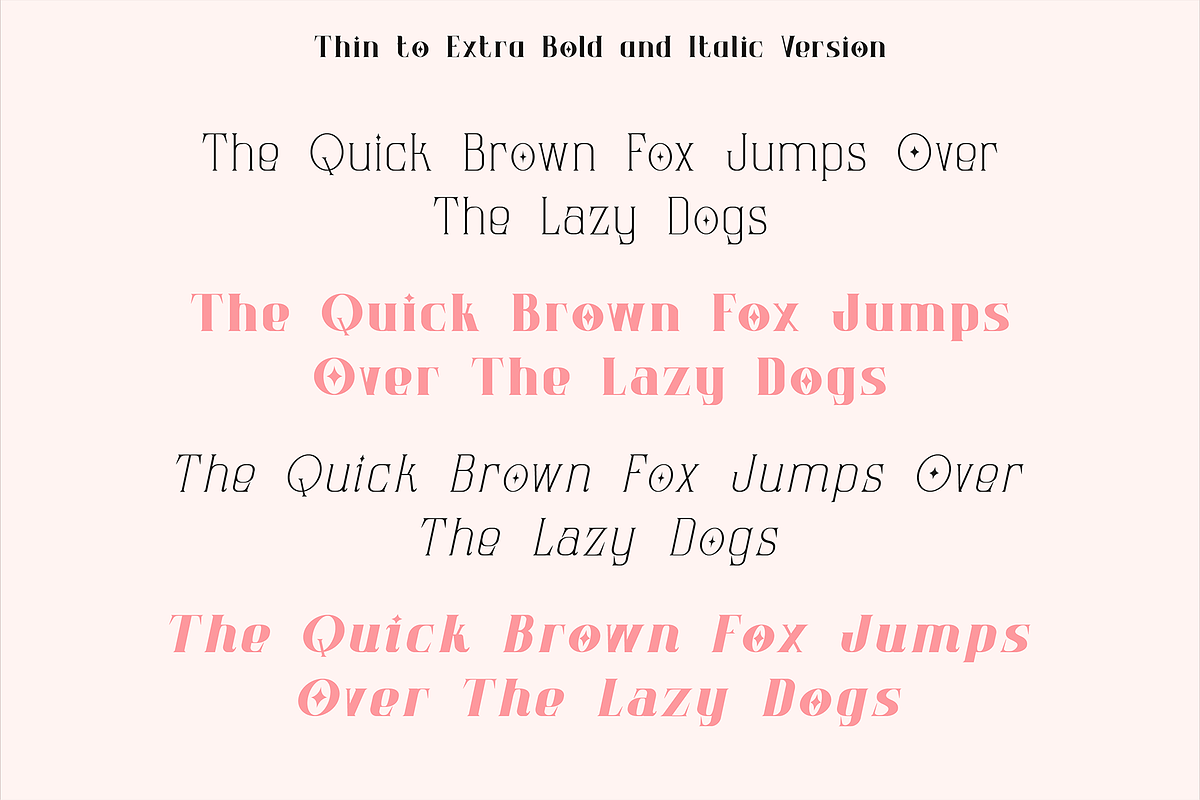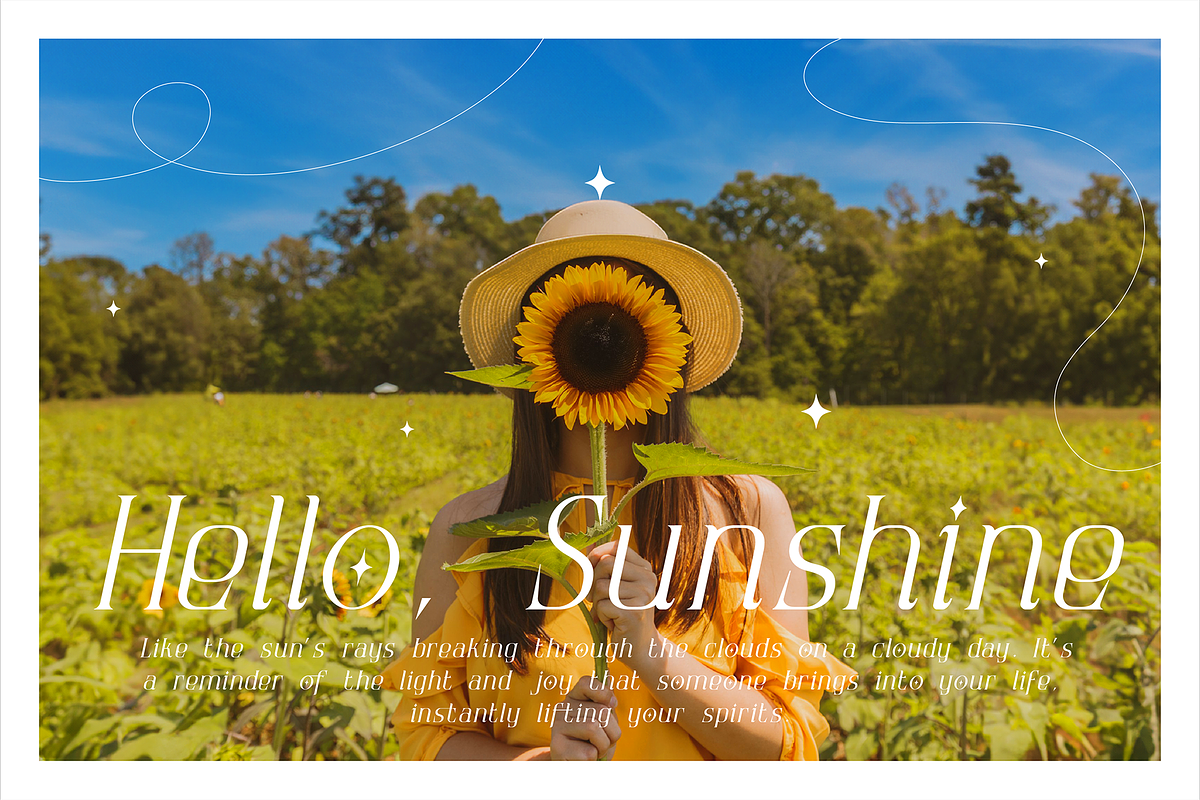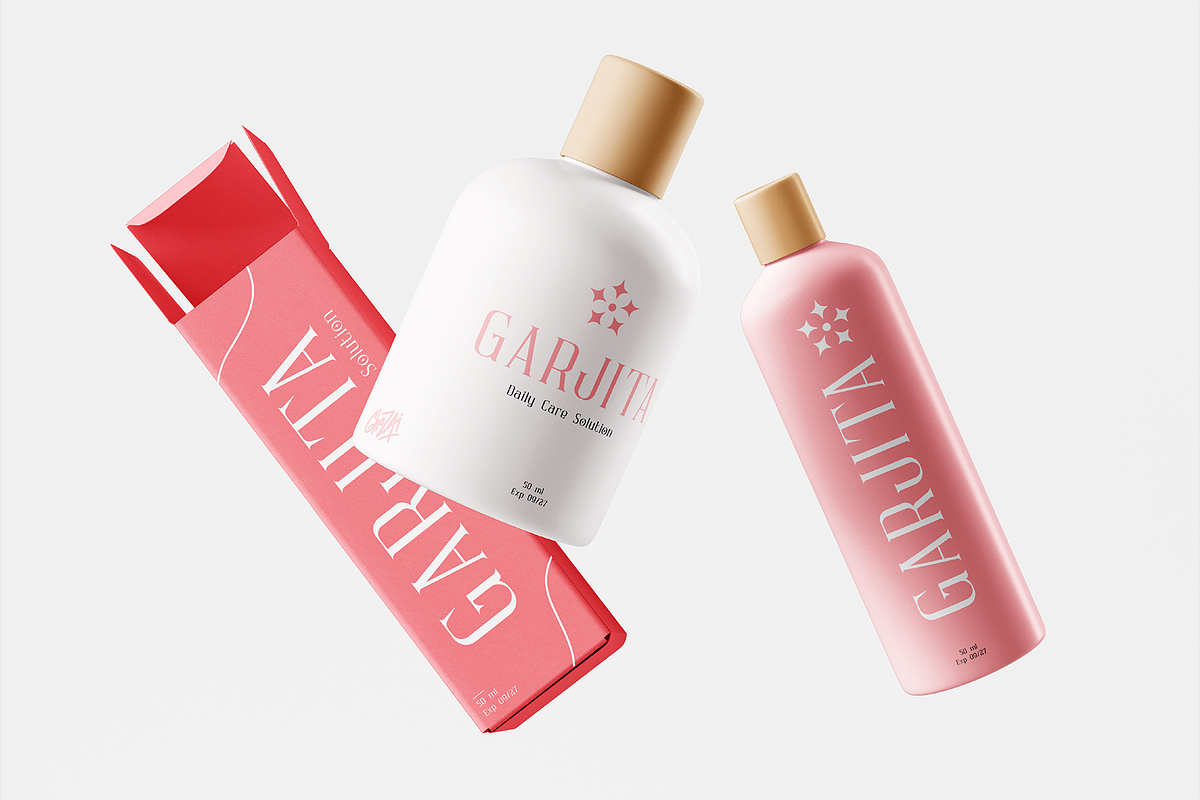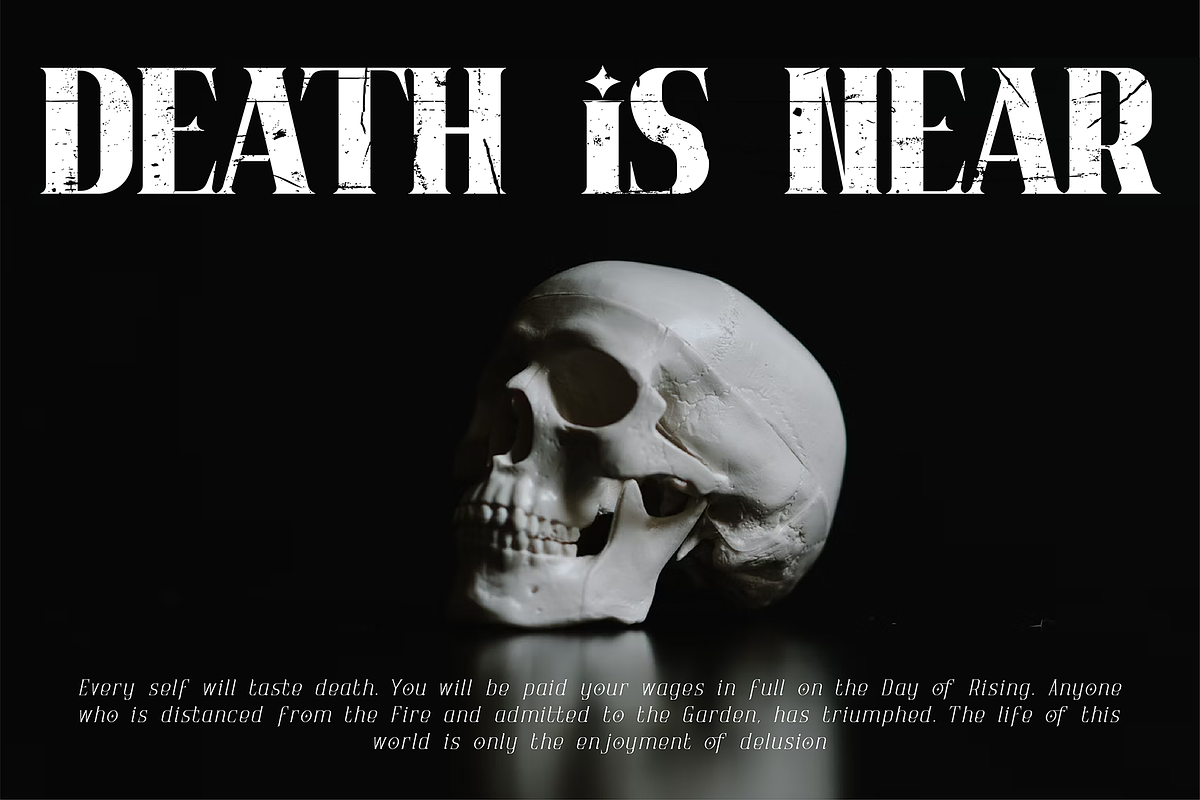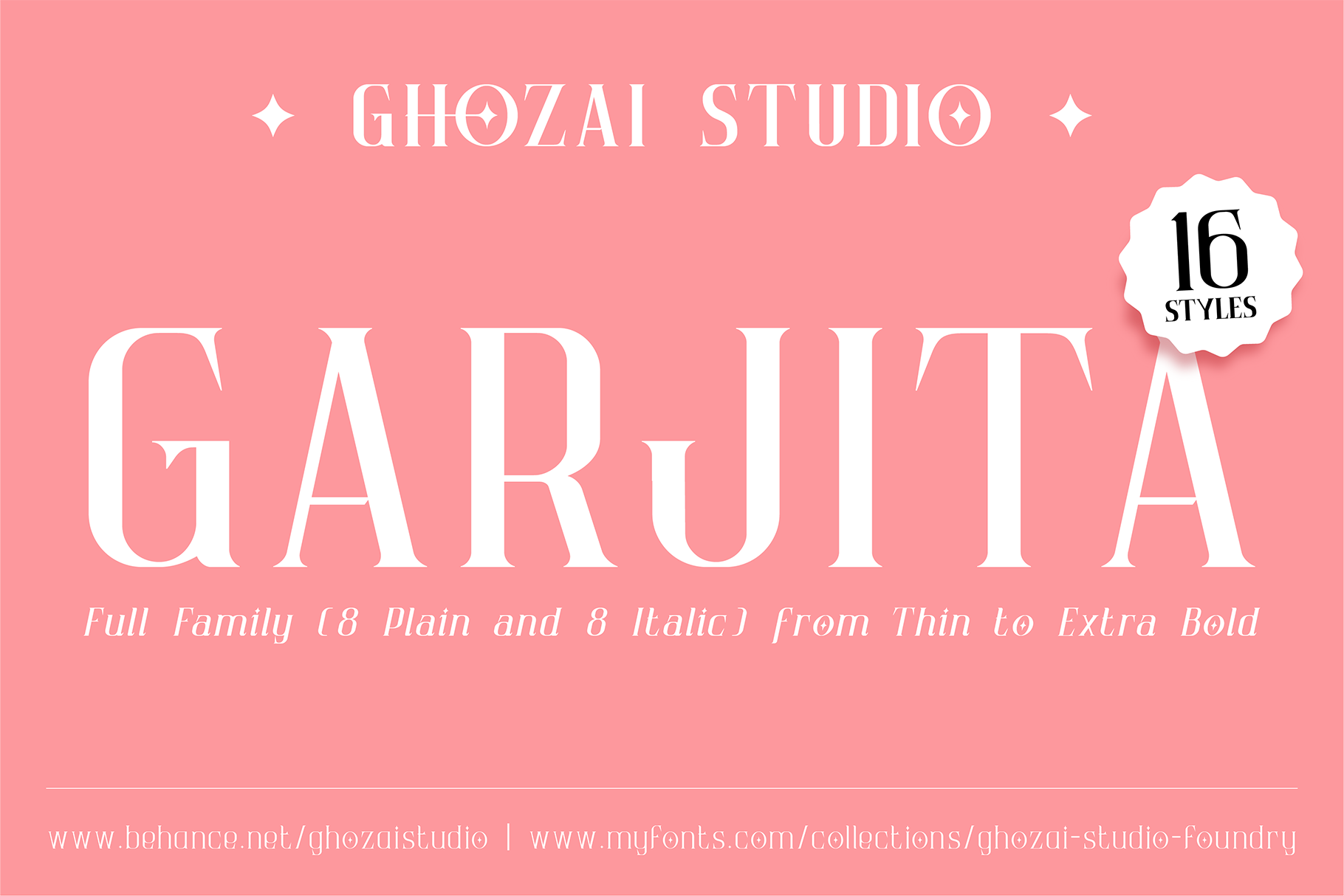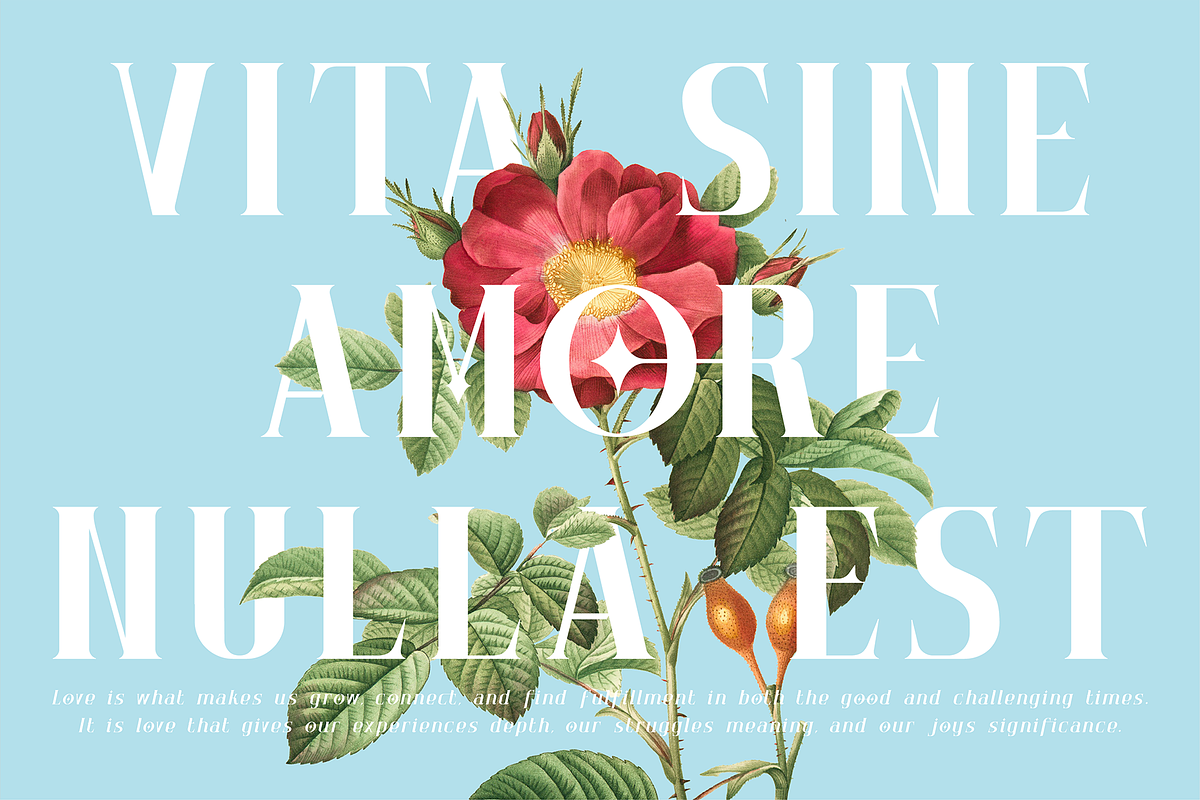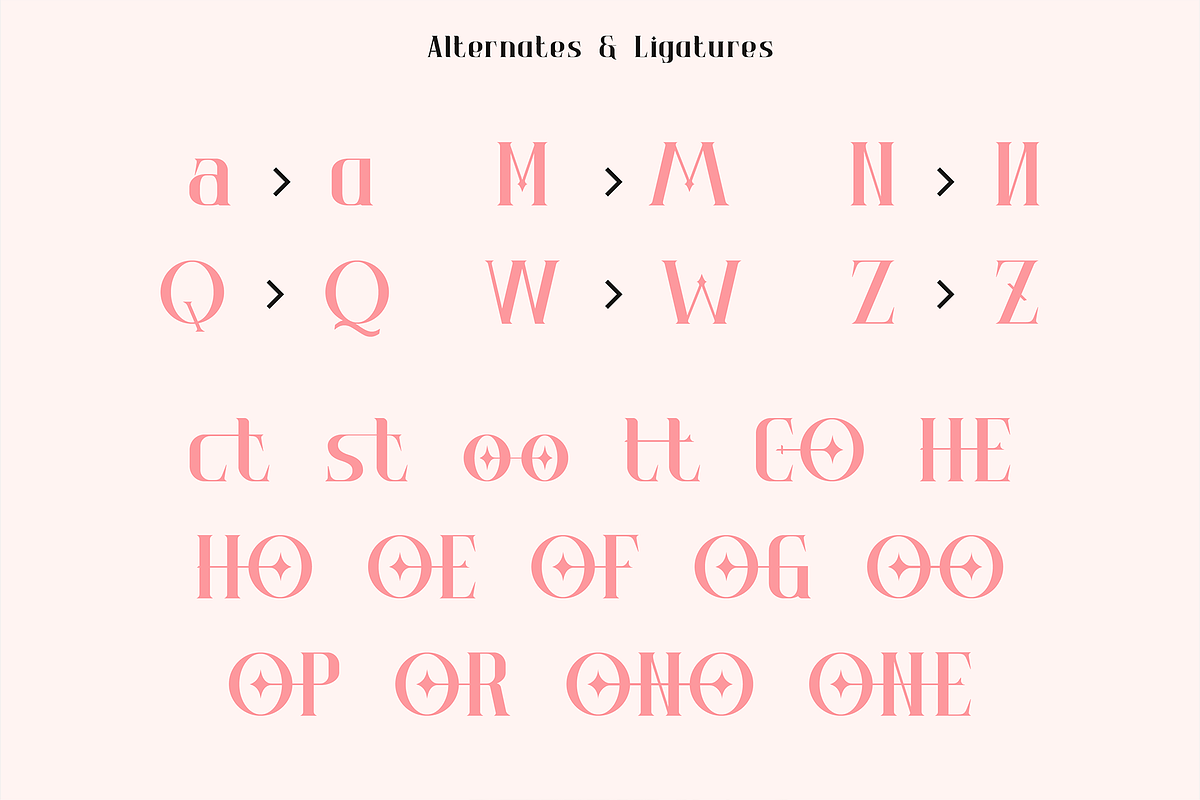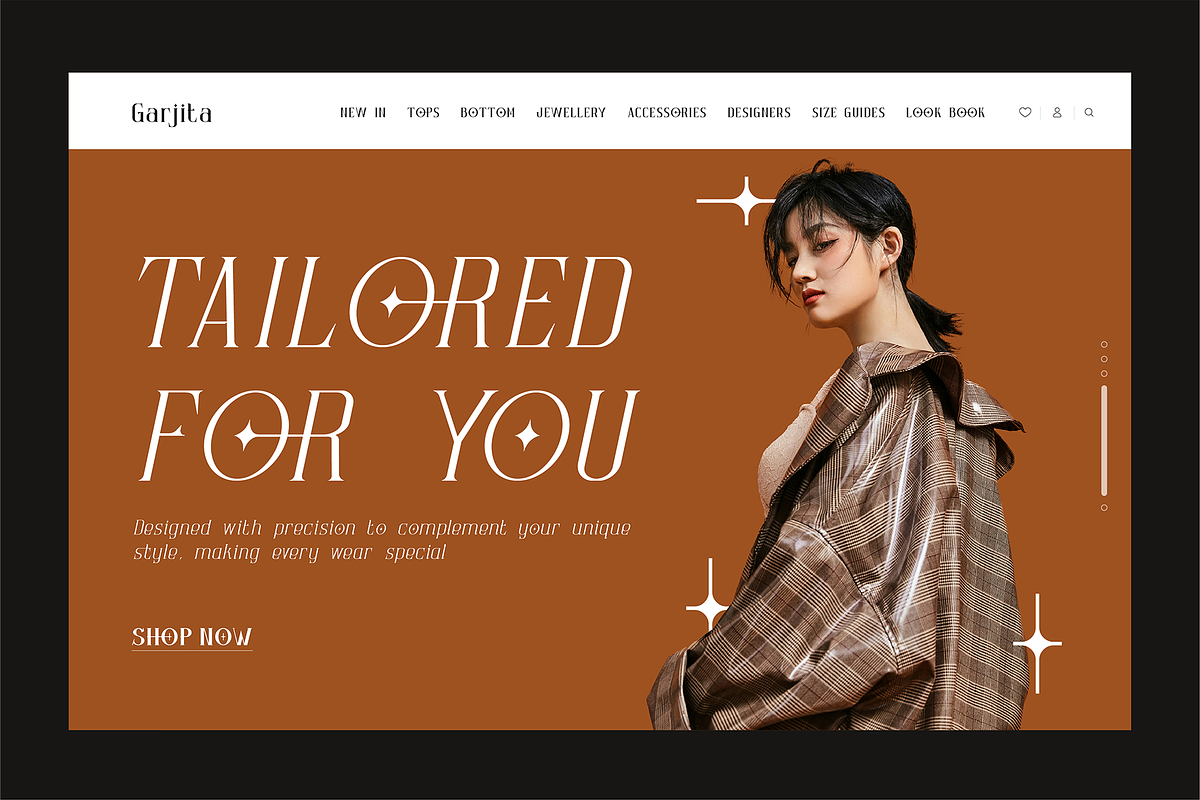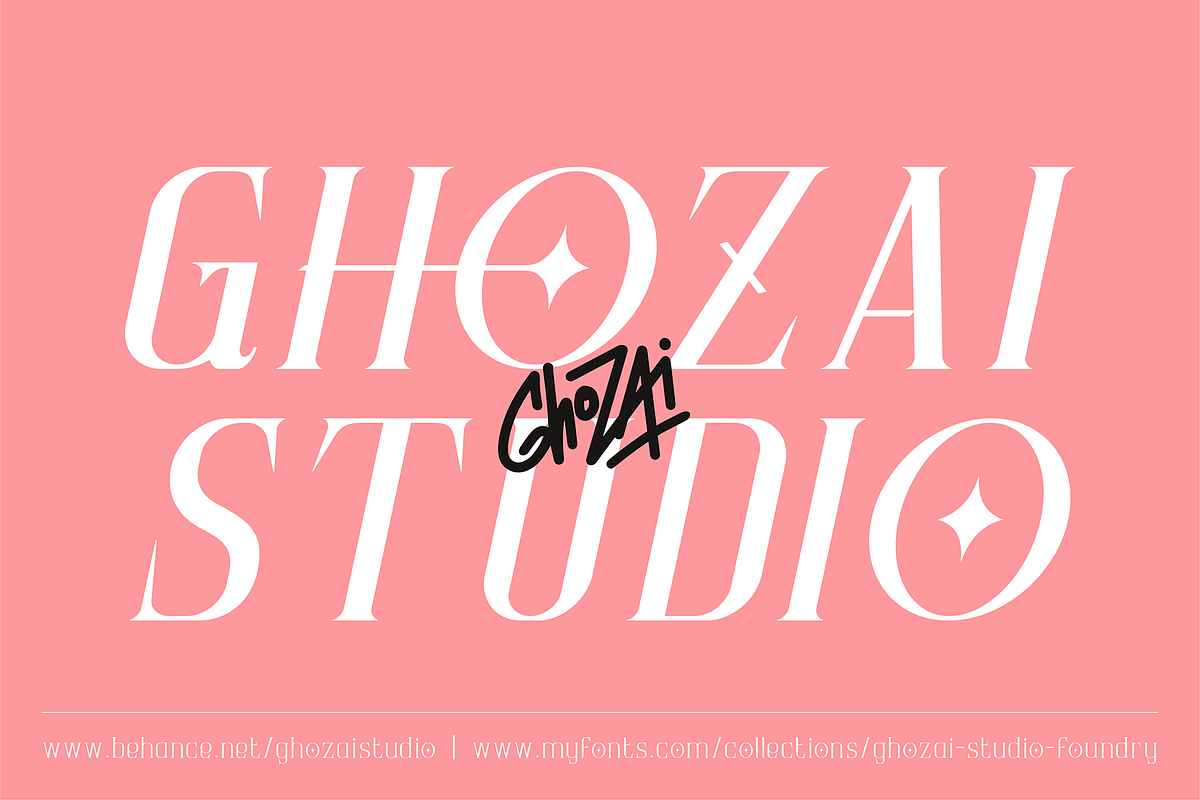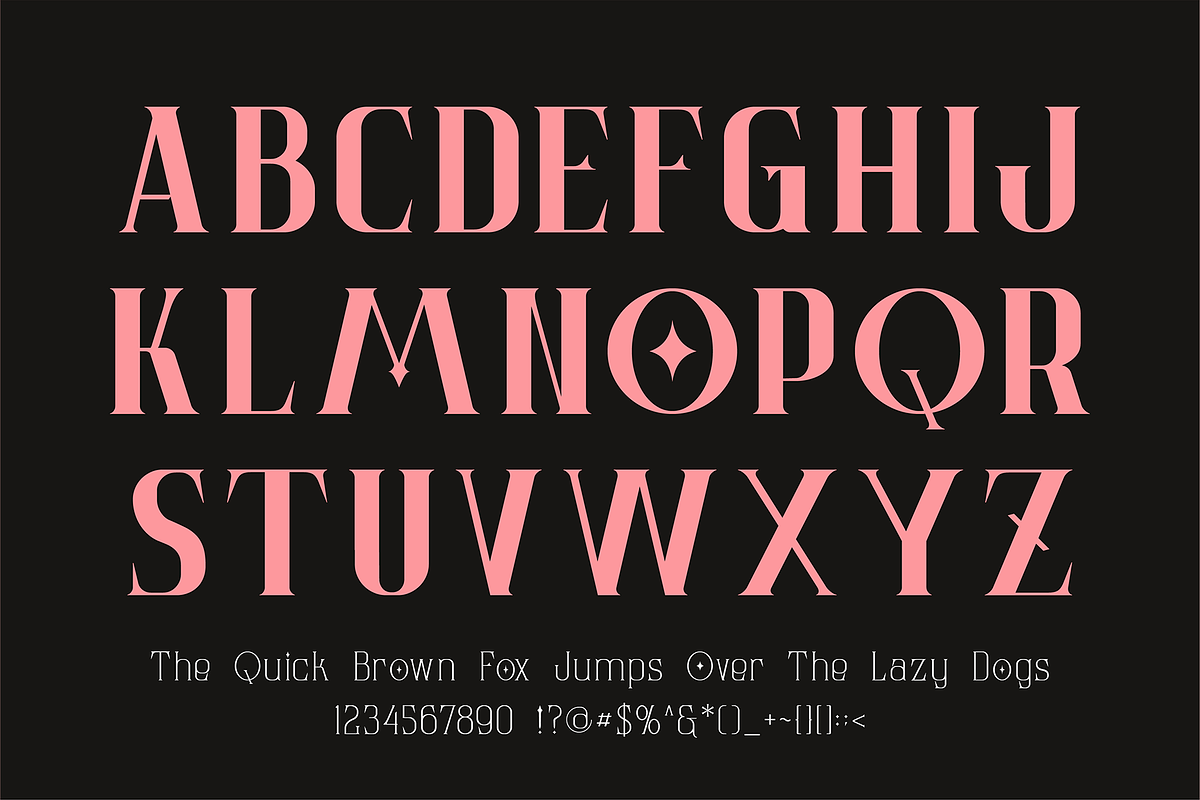
Garjita - Elegant font family
Garjita is an elegant serif font combining thin and bold strokes with a star accent to make it unique and grab more attention from your audience. This font makes a harmonious combination of your modern and classic layouts. Perfect for any purpose, such as luxury design (hotel logo, restaurant menu, restaurant poster or web, wedding invitation), fashion, band poster, headline, and many others.
Garjita is available in 16 styles (8 plain and 8 italic), ranging from thin to extra bold. Garjita also includes a wide range of ligatures and alternate styles, providing more options for your design needs
True italic